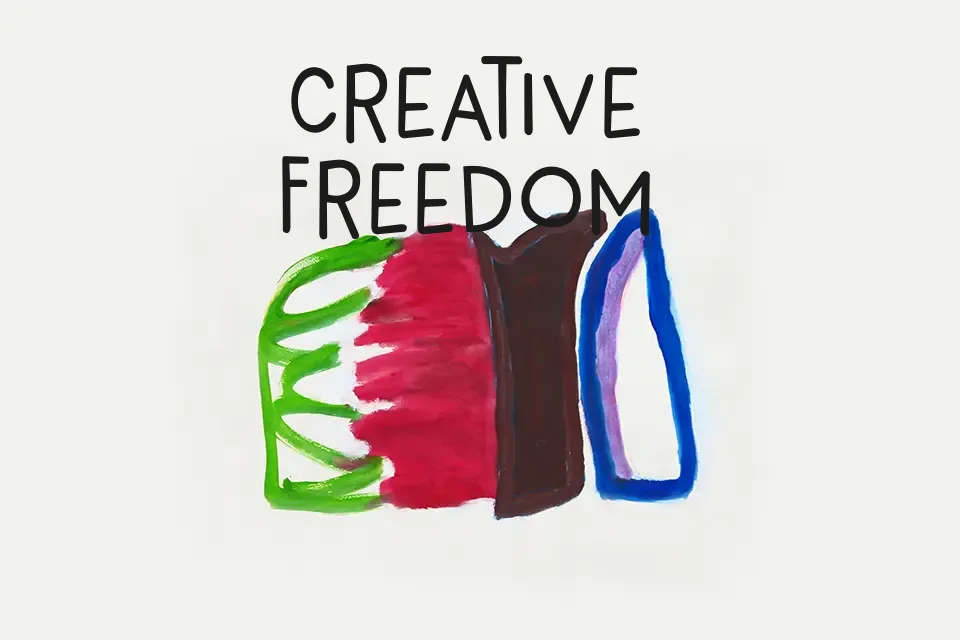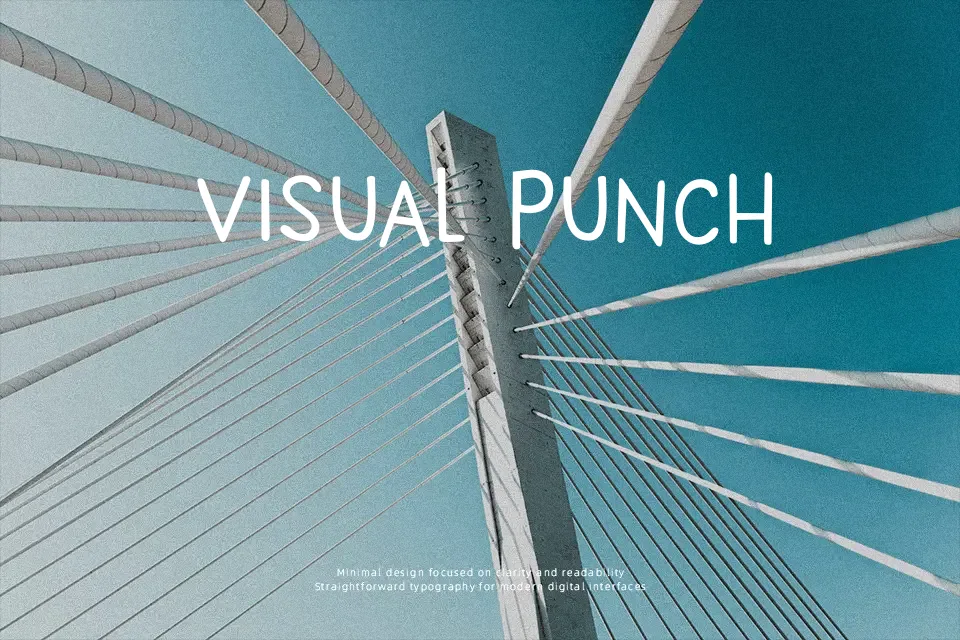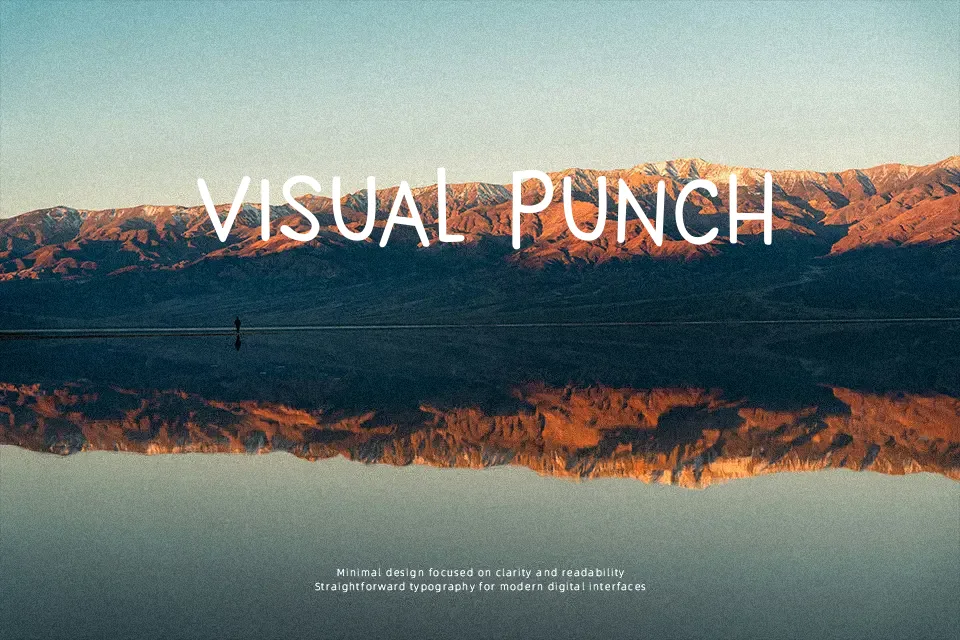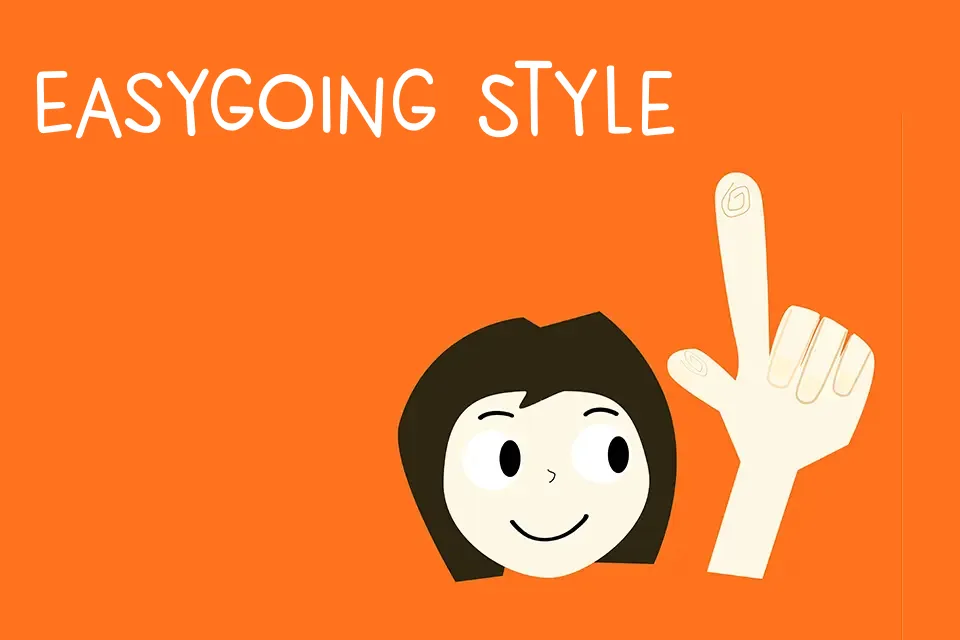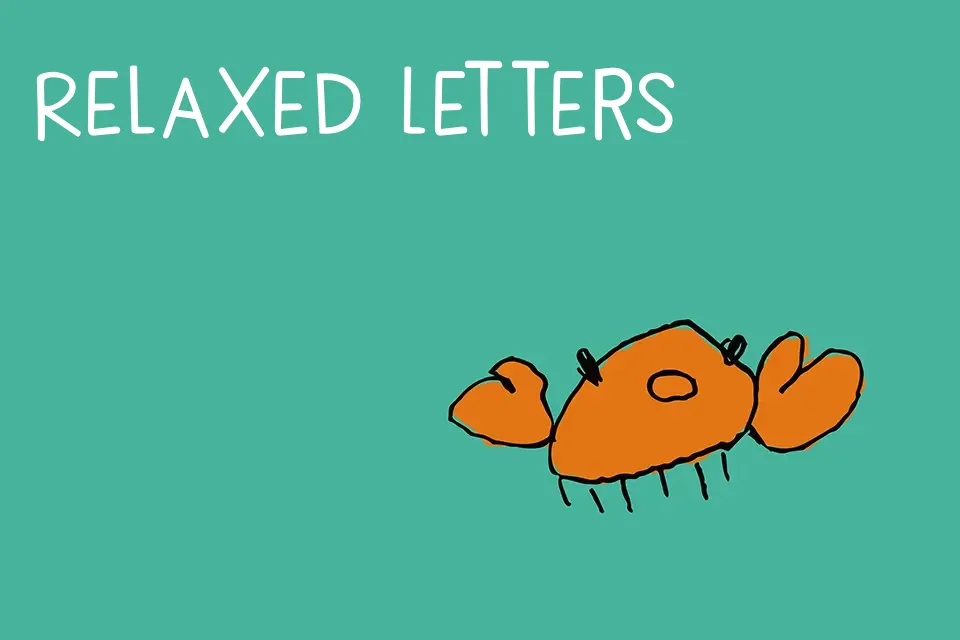
DK New Beginnings Font
Designed by Hanoded
DK New Beginnings Font has tall, narrow capitals, rounded stroke endings, and slightly irregular spacing that give each line a hand-lettered bounce. The weight stays fairly even, so it reads cleaner than a rough marker font, but it still feels casual and decorative rather than structured. I’d use it for children’s book covers, quote graphics, classroom posters, or packaging that needs a friendly handmade tone without turning messy. The alternate uppercase and lowercase forms add movement in short headlines. It starts to lose control in long paragraphs, though, and the playful rhythm can feel underdressed in formal branding, invitations, or interface-heavy layouts.
children’s book covers,product packaging,quote posters,classroom materials
body copy,formal invitations,corporate branding,ui text
Perfect for headline, kids, and packaging, with a creative and decorative style.